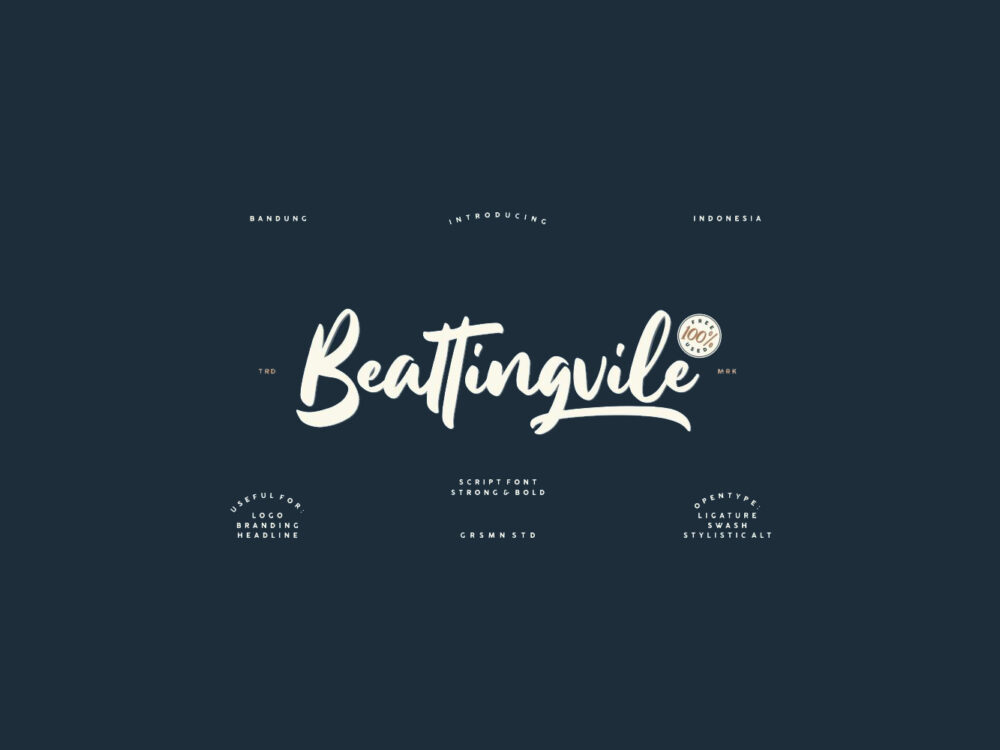
Beattingvile Script Free Font
Free Brush Font
Beattingvile Script Free Font is a new completely free handwritten font that incorporates the street atmosphere and style. This font is perfect for creating posters, cards, invitations, and more.